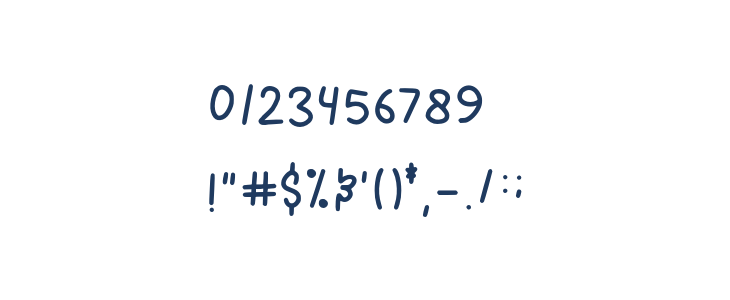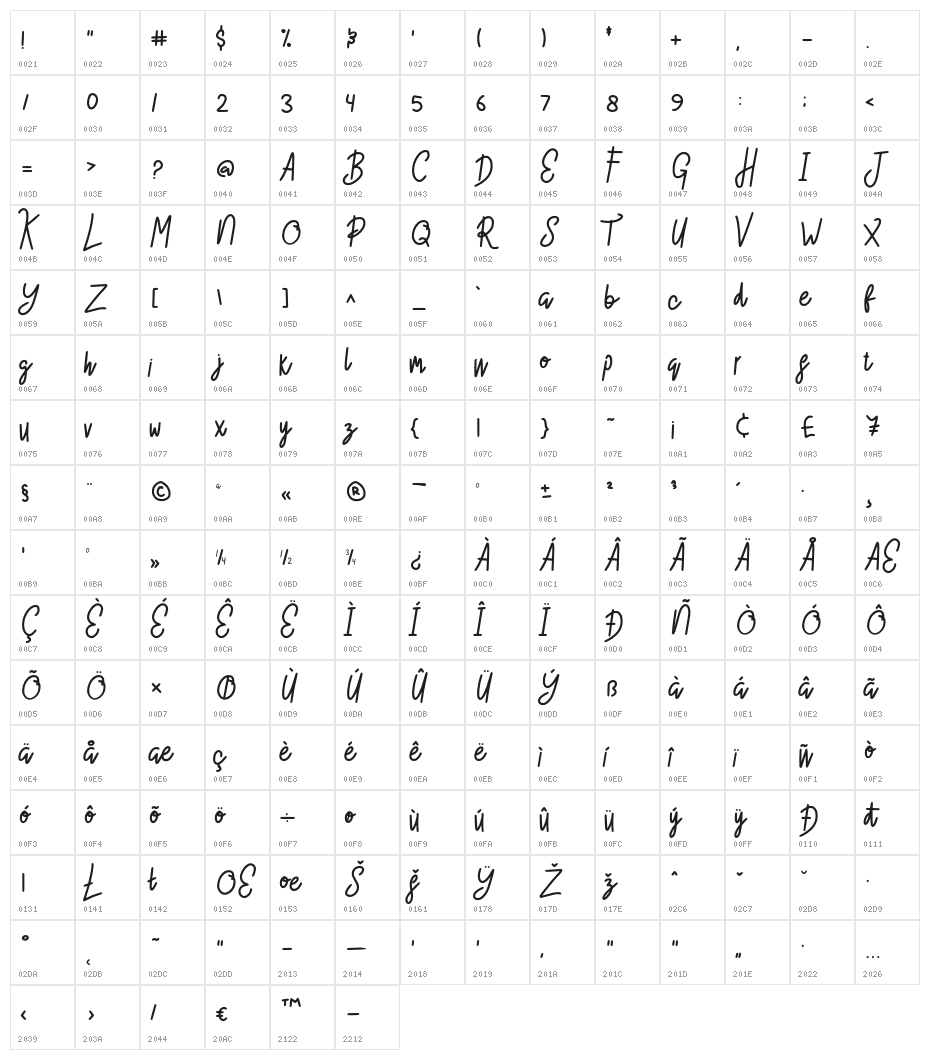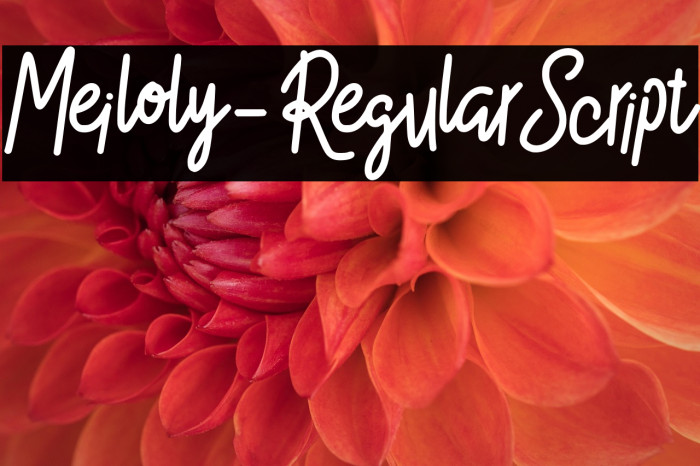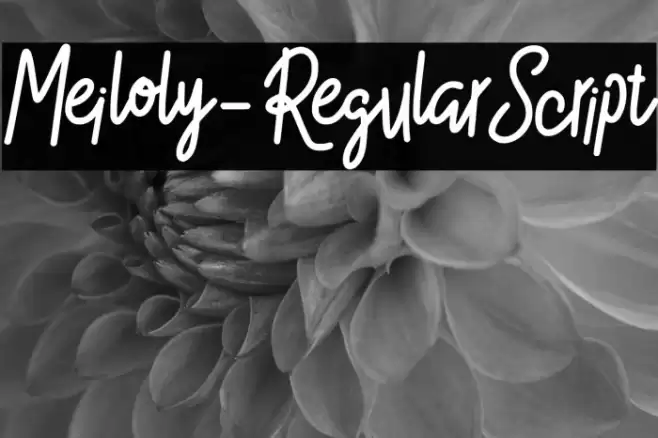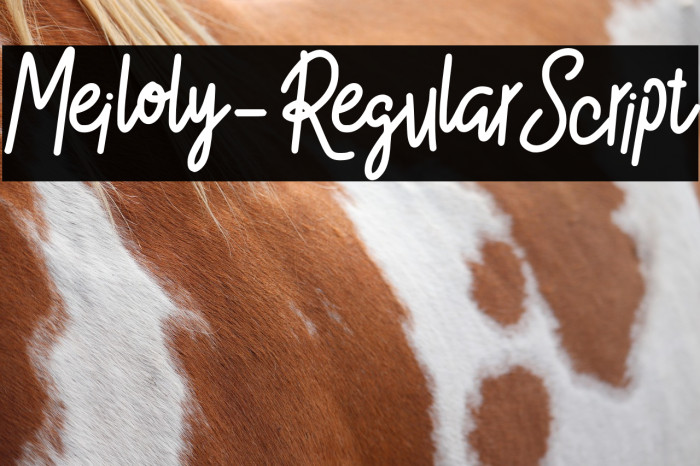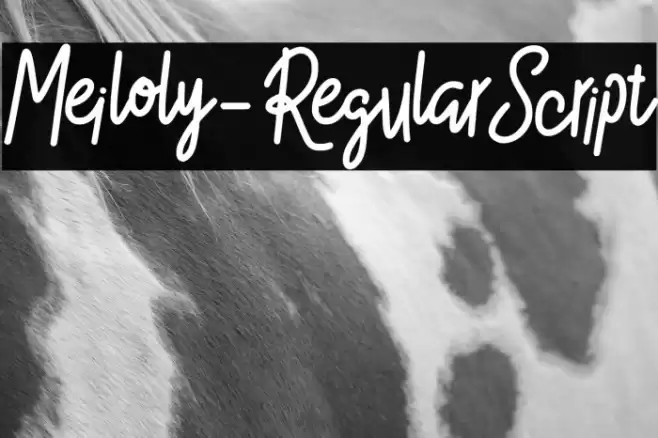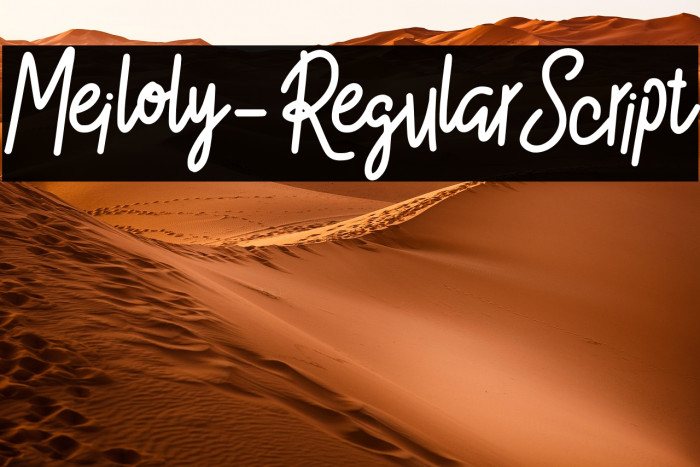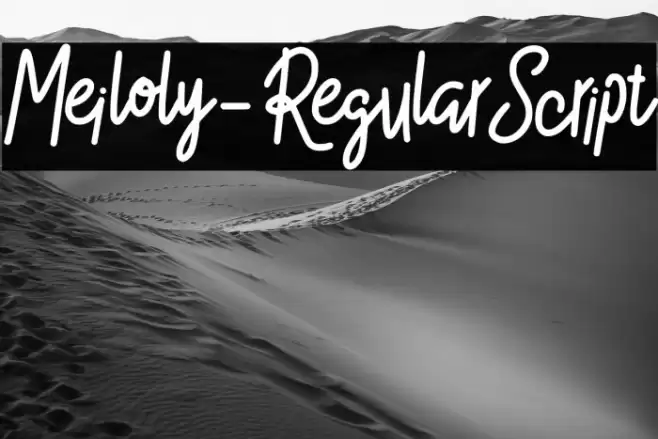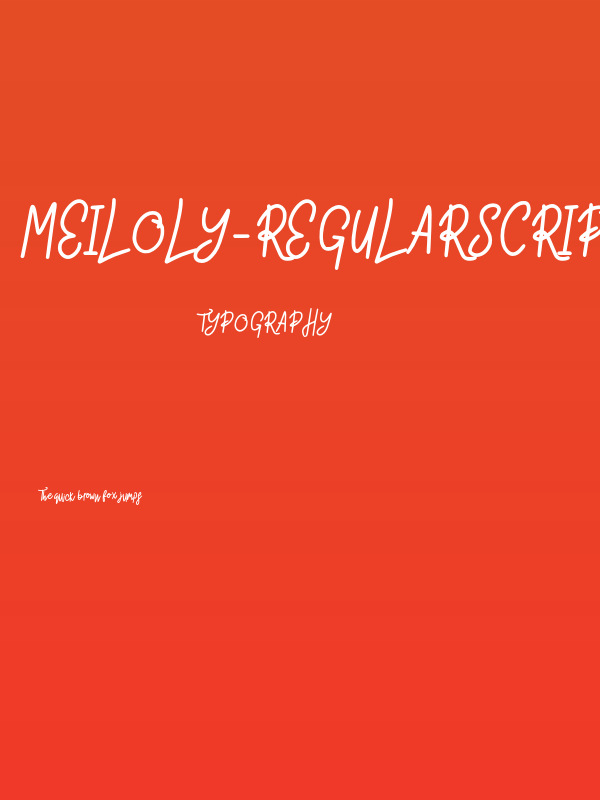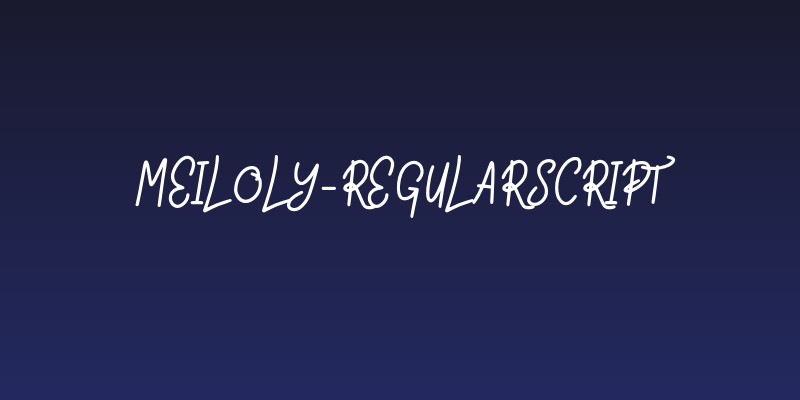
Meiloly-RegularScript Font
Meiloly-RegularScript Description
This font features a lively and flowing script style, characterized by its smooth, continuous strokes and a handwritten appearance. The uppercase letters are bold and slightly elongated, giving them a distinctive presence, while the lowercase letters maintain a consistent, fluid motion that enhances readability. The numerals are well-integrated into the script style, maintaining the same fluidity and elegance. Special characters are thoughtfully designed to match the overall aesthetic, ensuring a cohesive look across all text elements. This font exudes a sense of casual elegance, making it suitable for a variety of creative applications.
| Proposed Projects | Ideal for invitations, greeting cards, branding, and social media graphics. |